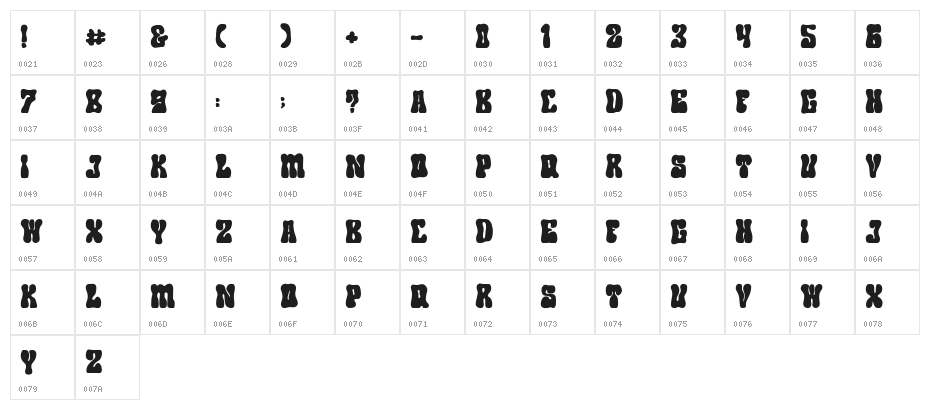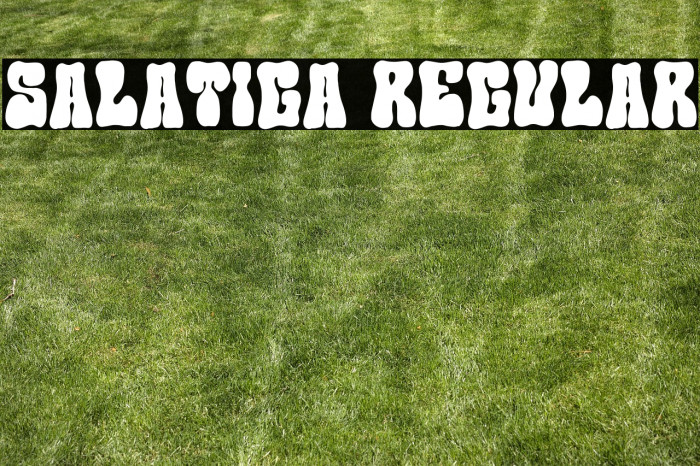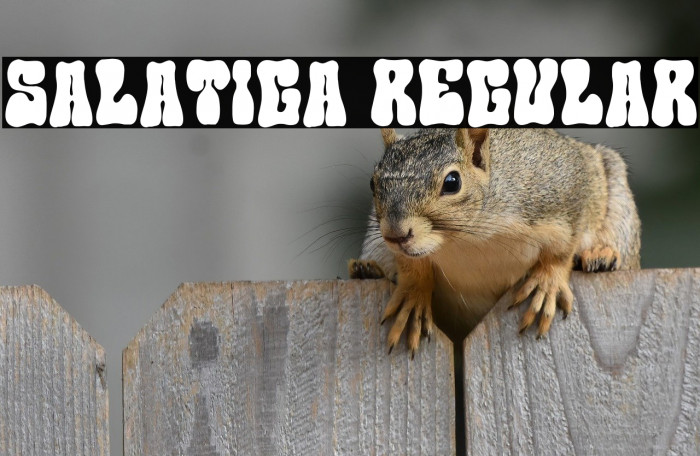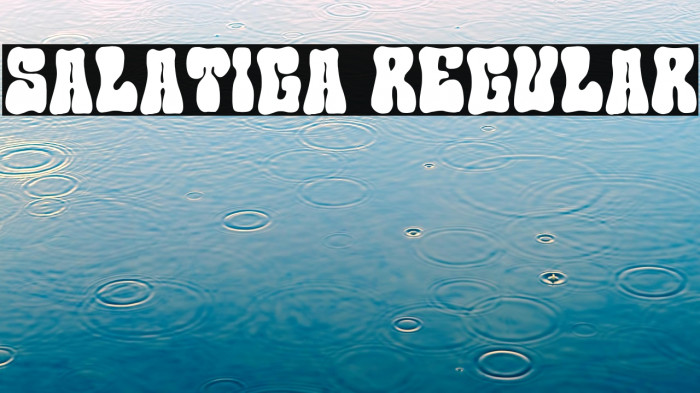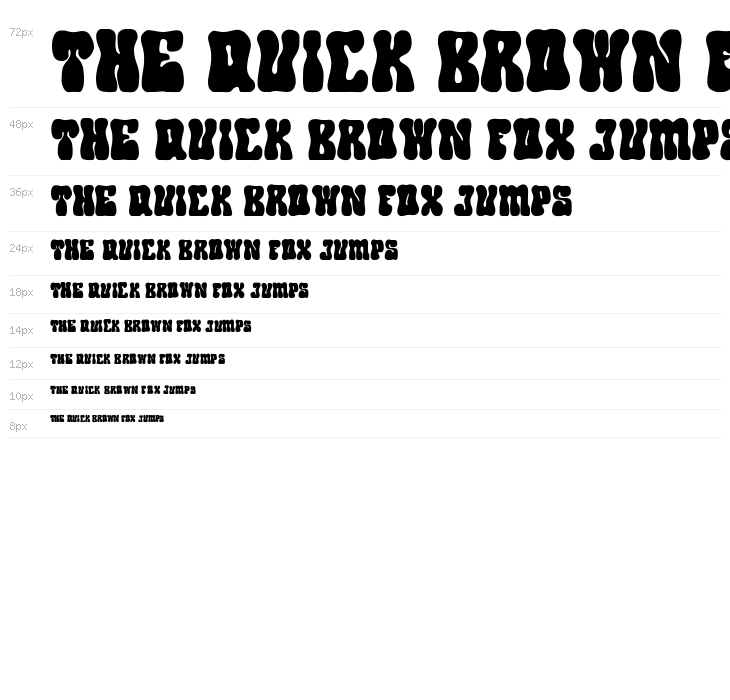
Salatiga Regular Font
Salatiga Regular Description
This font features a bold, playful design with thick, rounded edges and a bubbly appearance. The characters are heavily stylized, giving them a unique and eye-catching look. The uppercase and lowercase letters maintain a consistent style, with a slightly condensed form that enhances their boldness. The numbers and special characters follow the same design principles, ensuring uniformity across all glyphs. This font's distinctive style makes it ideal for projects that require a fun and engaging visual element.
| Overall Style | Playful, Fun, Decorative |
| Proposed Projects | Ideal for children's books, playful branding, posters, and party invitations. |